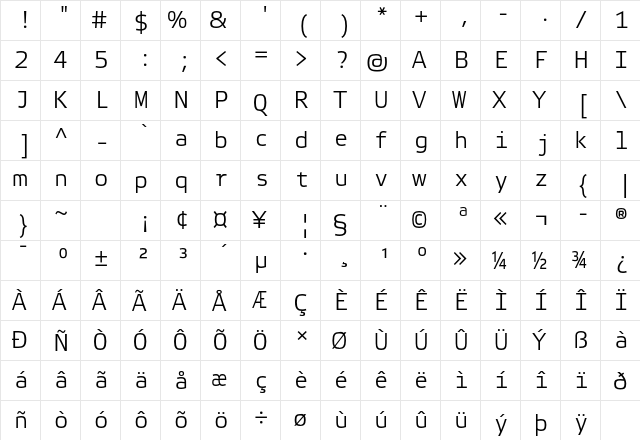
Elektra Mono Light Pro Regular
| Designer | Frantisek Storm |
Design Context for Elektra Mono Light Pro Typeface
Elektra Mono Light Pro uses fixed-width spacing throughout, giving it the structured, systematic character associated with coding environments and technical documentation. The delicate stroke weight brings airiness and refinement to layouts.
Pro Tip: Pair Elektra Mono Light Pro with a proportional sans for UI contexts where code-style labels and regular body copy need to coexist.